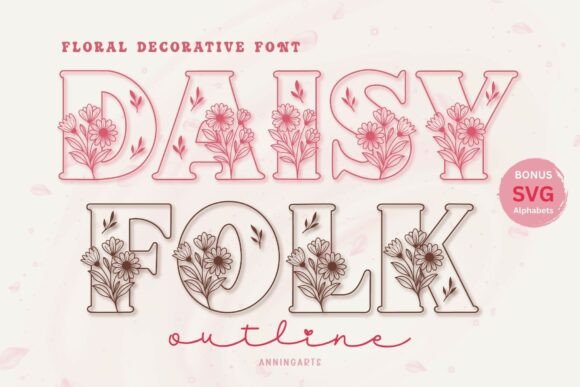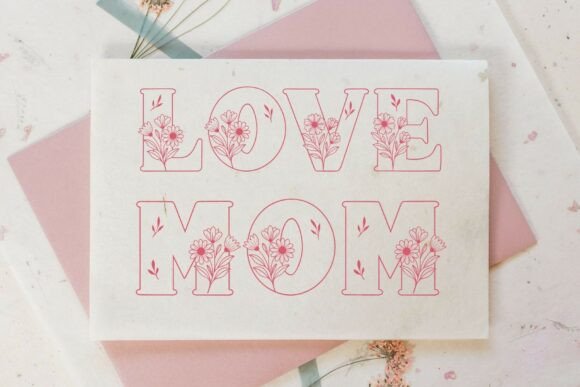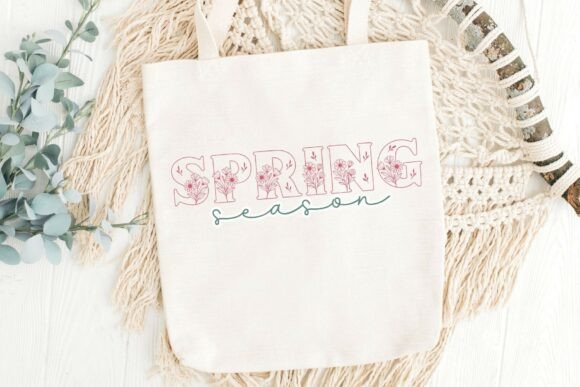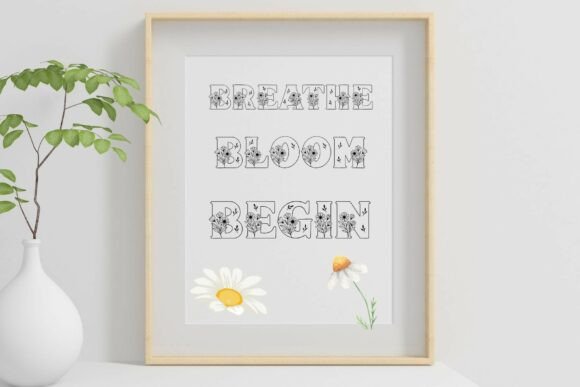
Daisy Folk  Font
Daisy Folk Font
Daisyfolk Outline is a floral decorative serif font featuring uppercase A–Z and numbers 0–9, beautifully adorned with hand-drawn daisy and botanical illustrations. This outlined version brings a fresh, lightweight aesthetic that’s perfect for spring-themed designs, boho weddings, greeting cards, DIY crafts, and Cricut projects.